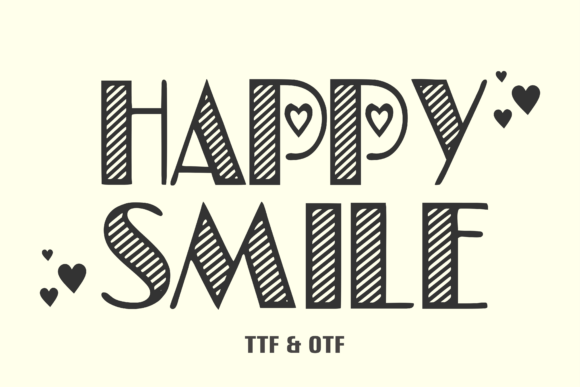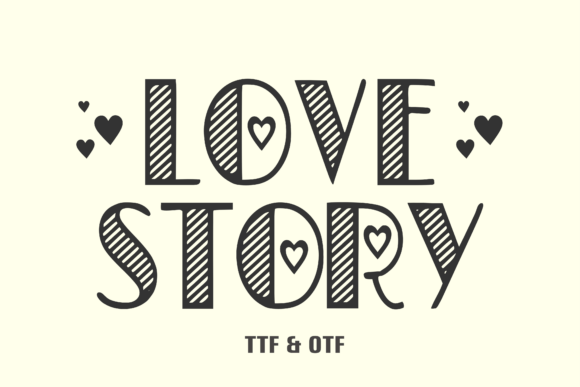
Birthday Font: Where Merriment Meets Imagination
Are you looking for a font that can add a touch of fun and frolic to your designs? Look no further than the Birthday font! This exuberantly decorative font is poised to splash your designs with uncurbed joy, making it perfect for children’s themed funfests, enthusiastic celebrations, and vivid imaginations.
Unleash the Magic of Birthday Font
The Birthday font is designed to capture the essence of joyful celebrations and bring a sense of whimsy to your designs. With its animated and playful strokes, this font is sure to transform your book covers into vibrant narratives, posters into delightful visual treats, and marketing materials into jovial appeals.
Whether you’re a designer, crafter, or DIY enthusiast, the Birthday font is the perfect addition to your creative toolkit. This versatile font can be used for a wide range of projects, from:
- Children’s book covers and illustrations
- Party invitations and decorations
- Marketing materials and advertisements
- DIY craft projects and scrapbooking
So, what makes the Birthday font so special? Here are some of its key features:
- Exuberantly decorative: The Birthday font is designed to add a touch of fun and excitement to your designs.
- Animated and playful: With its animated strokes, this font is sure to bring a sense of whimsy to your projects.
- Perfect for children’s themes: The Birthday font is ideal for children’s themed funfests, making it perfect for kids’ parties, nursery decor, and children’s book illustrations.
- Versatile: This font can be used for a wide range of projects, from digital designs to print materials.
How to Use Birthday Font
In conclusion, the Birthday font is a must-have for designers and crafters looking to add a touch of fun and frolic to their designs. With its exuberantly decorative and animated strokes, this font is sure to bring a sense of whimsy and joy to your projects. So why wait? Download the Birthday font today and let the magic of this playful typeface infuse your designs with uncurbed joy!